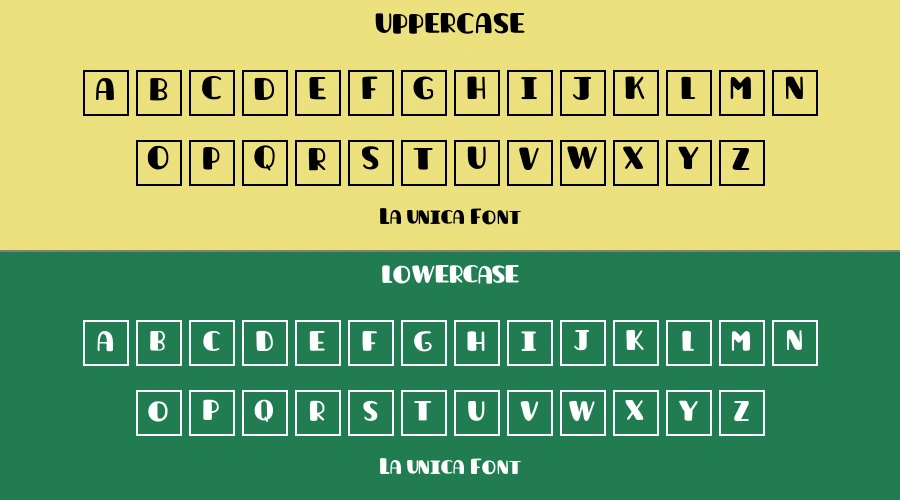
About La unica Font
La unica Font stands out for its distinctive combination of precise joints and consistency. Ideal for marketing materials, it provides the consistency and system compatibility that professional projects demand. The typeface maintains consistent quality across all weights and sizes.
Key features include refined calculated proportions and practical traditional styling, enhancing typographic expression. In display applications applications, La unica Font demonstrates exceptional detail retention. The stroke contrast and technical innovation contribute to its distinctive character and professional appeal.